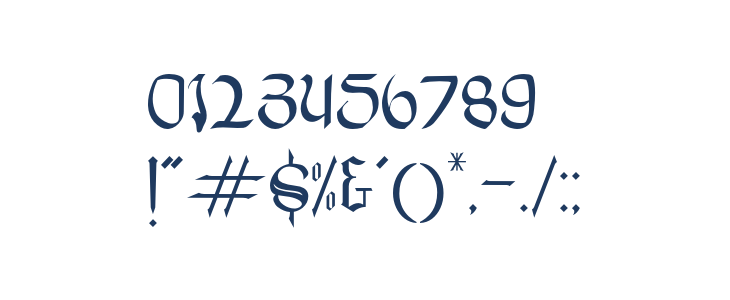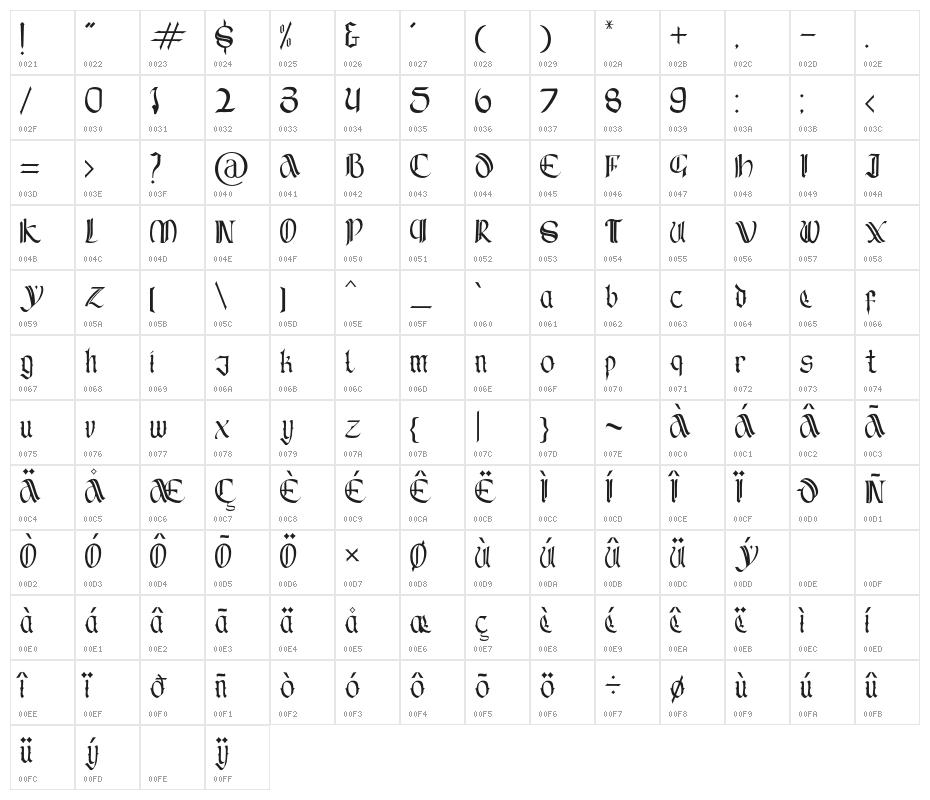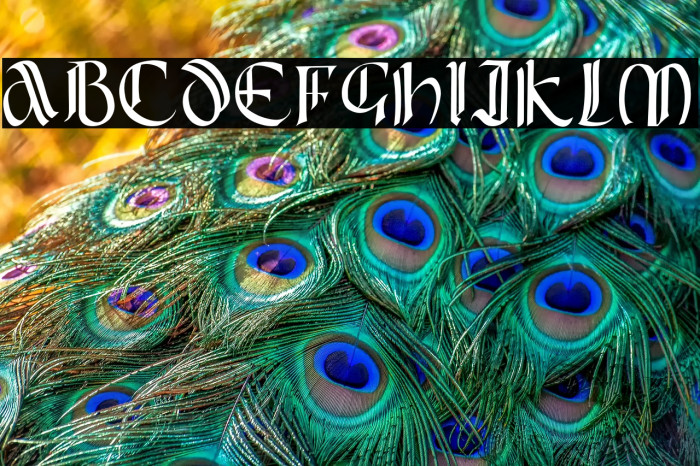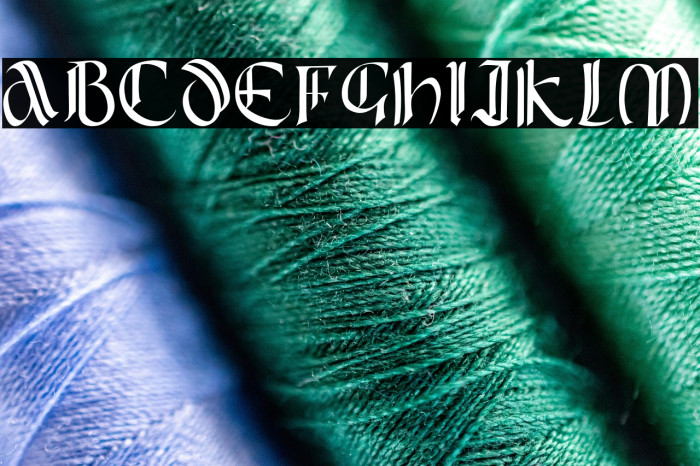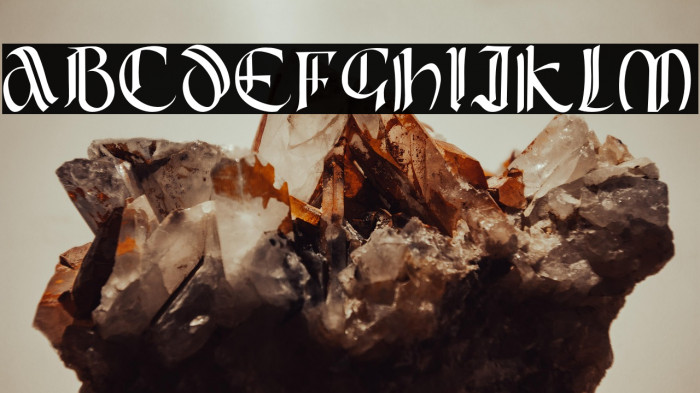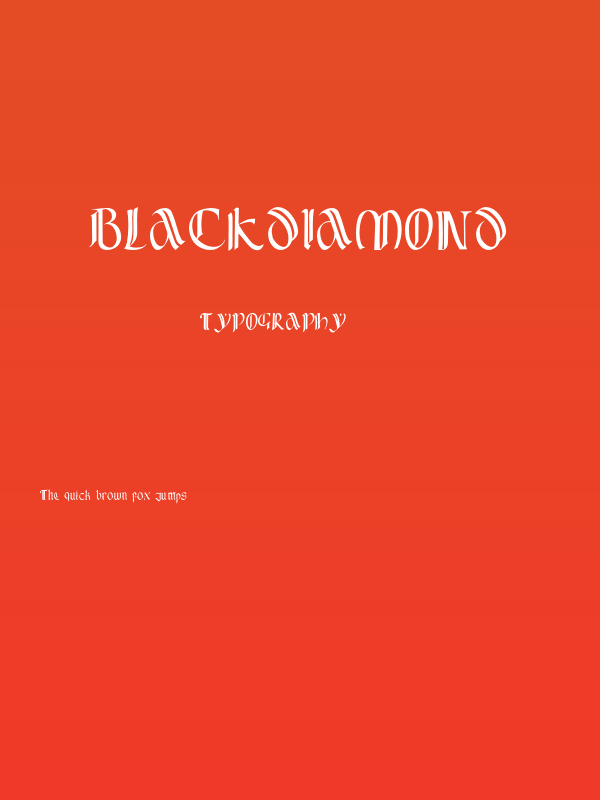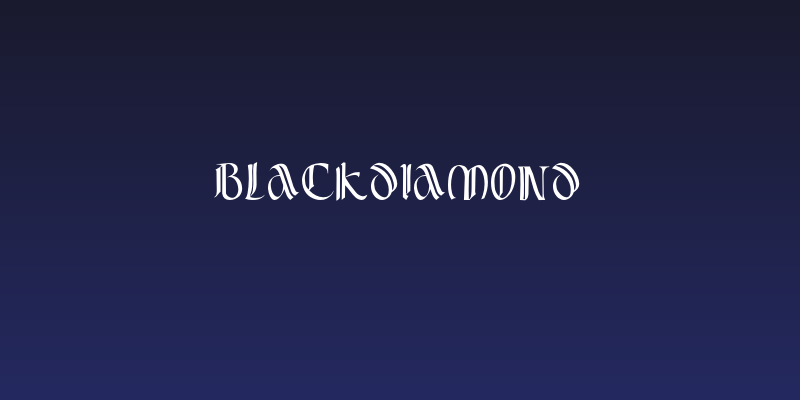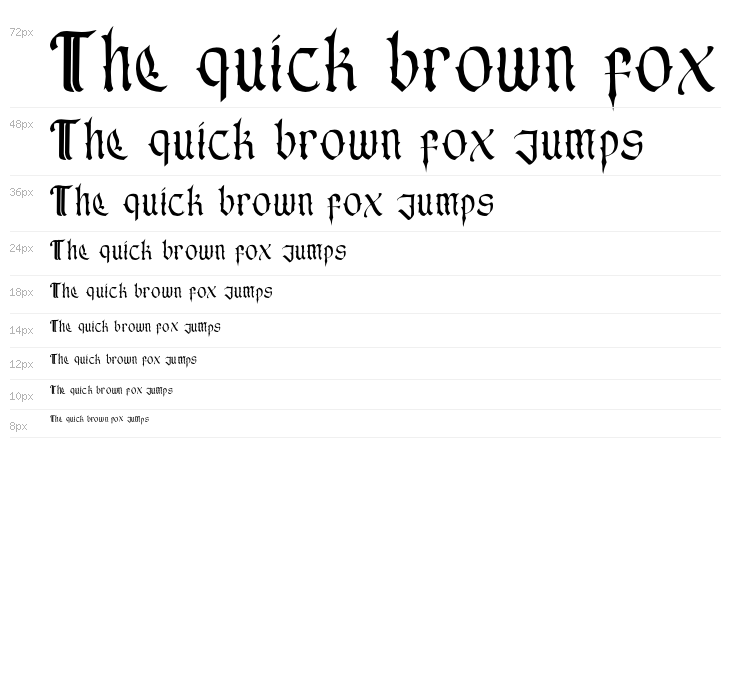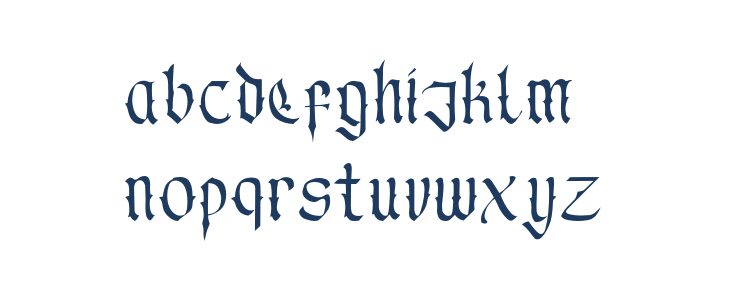
Blackdiamond Font
Blackdiamond Description
This font exhibits a bold and dramatic style reminiscent of traditional Blackletter typefaces. The characters are sharply defined with pointed edges and intricate curves, giving them a gothic and medieval appearance. The uppercase letters are particularly ornate, with elaborate strokes and a strong presence. The lowercase letters maintain the same stylistic elements but are slightly more subdued, providing a balanced contrast. The numerals are consistent with the overall theme, featuring angular shapes and a bold structure. Special characters are designed with the same attention to detail, enhancing the font's decorative appeal. This font is ideal for projects that require a historical or dramatic flair, such as themed event posters, book covers, or branding for products that wish to convey a sense of tradition and strength.
| Overall Style | Gothic, Medieval, Decorative |
| Proposed Projects | Ideal for themed event posters, book covers, branding, and any project needing a historical or dramatic touch. |